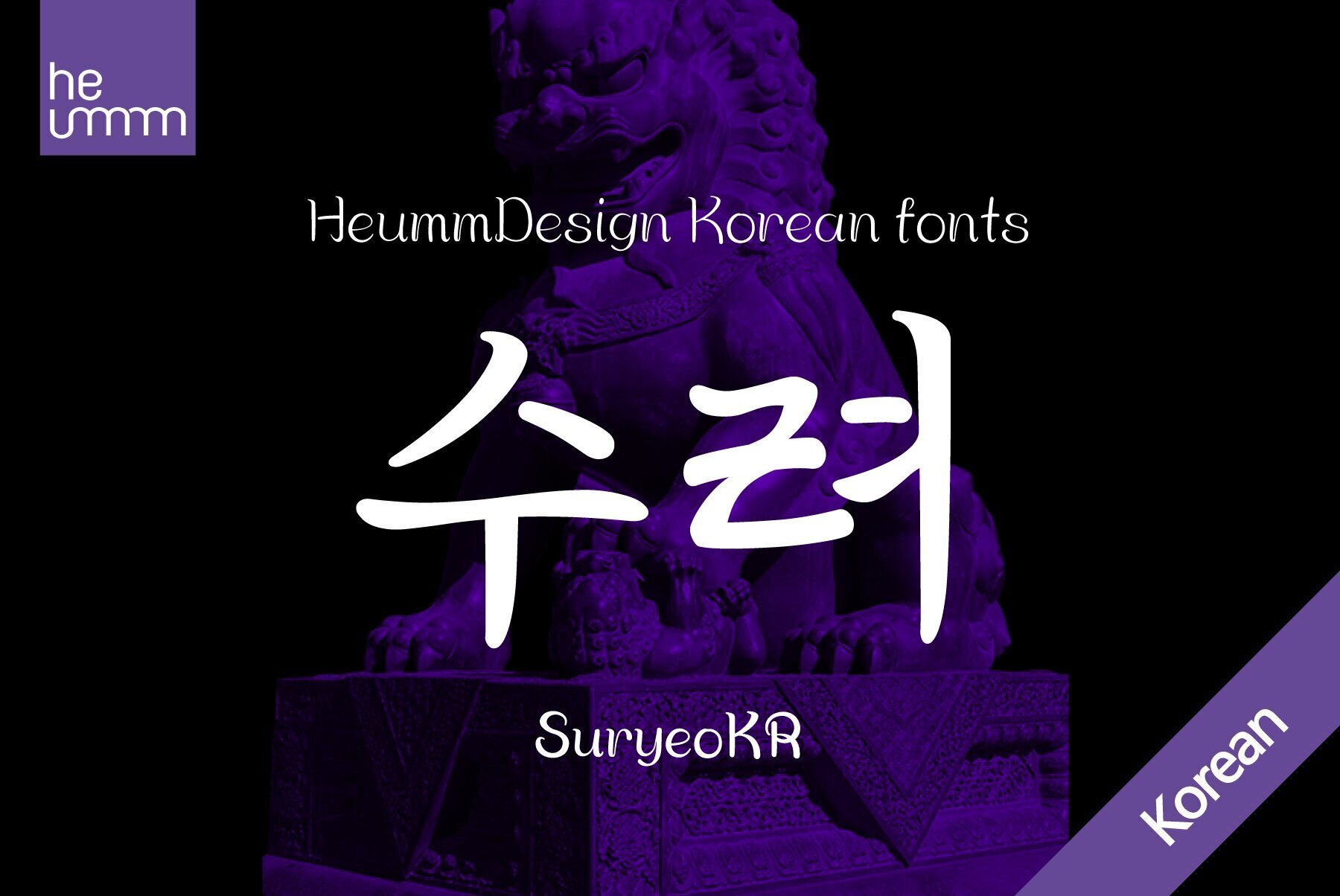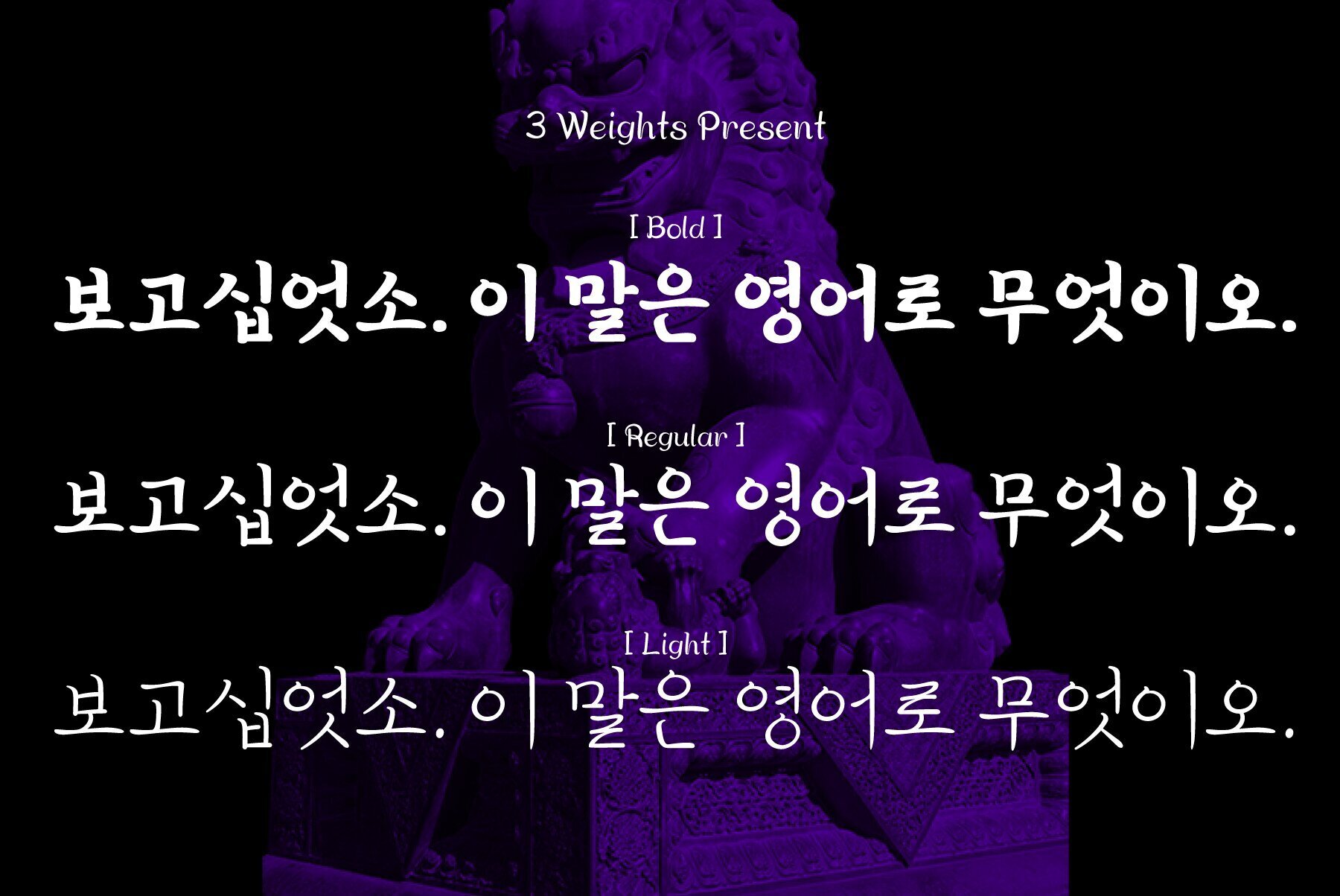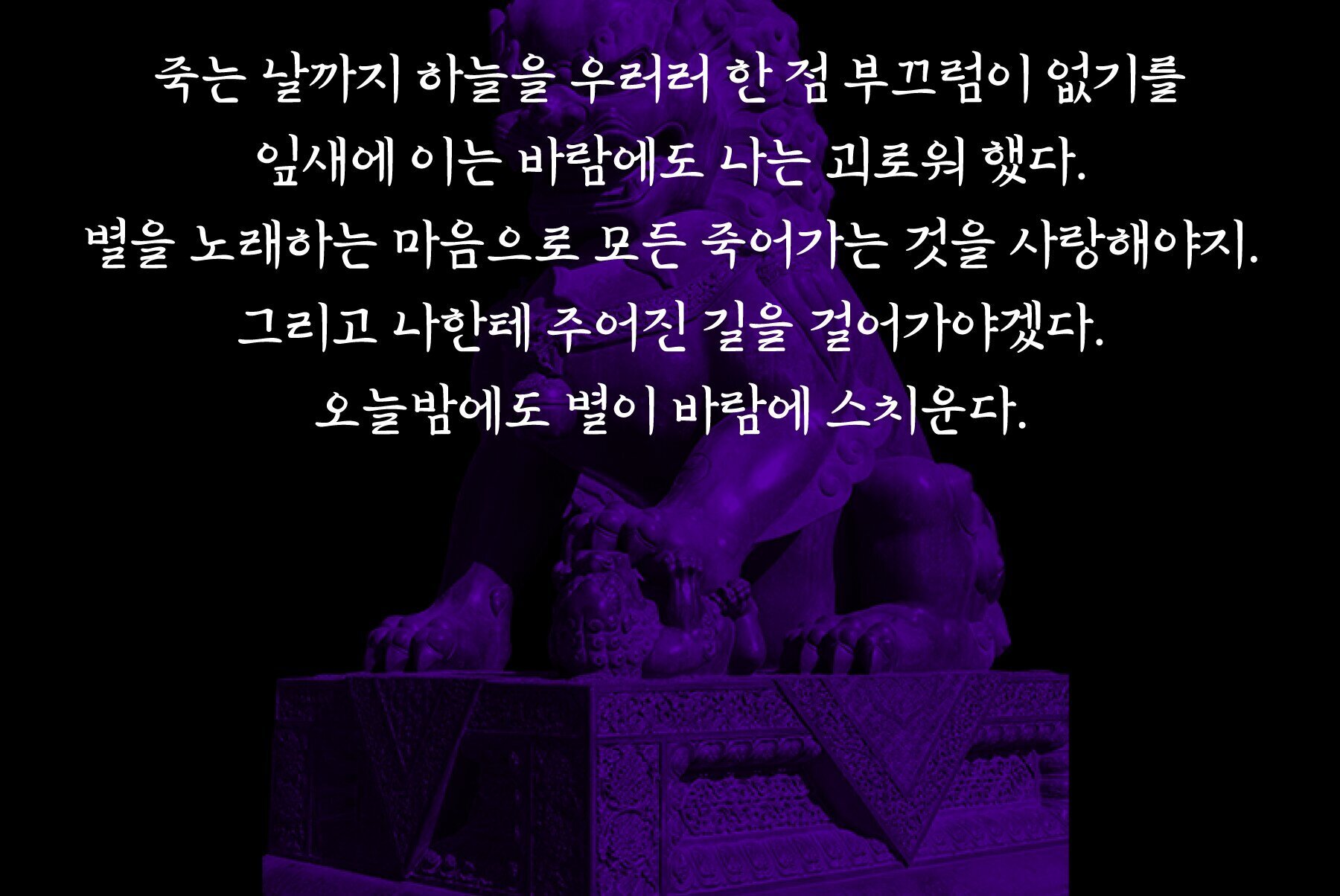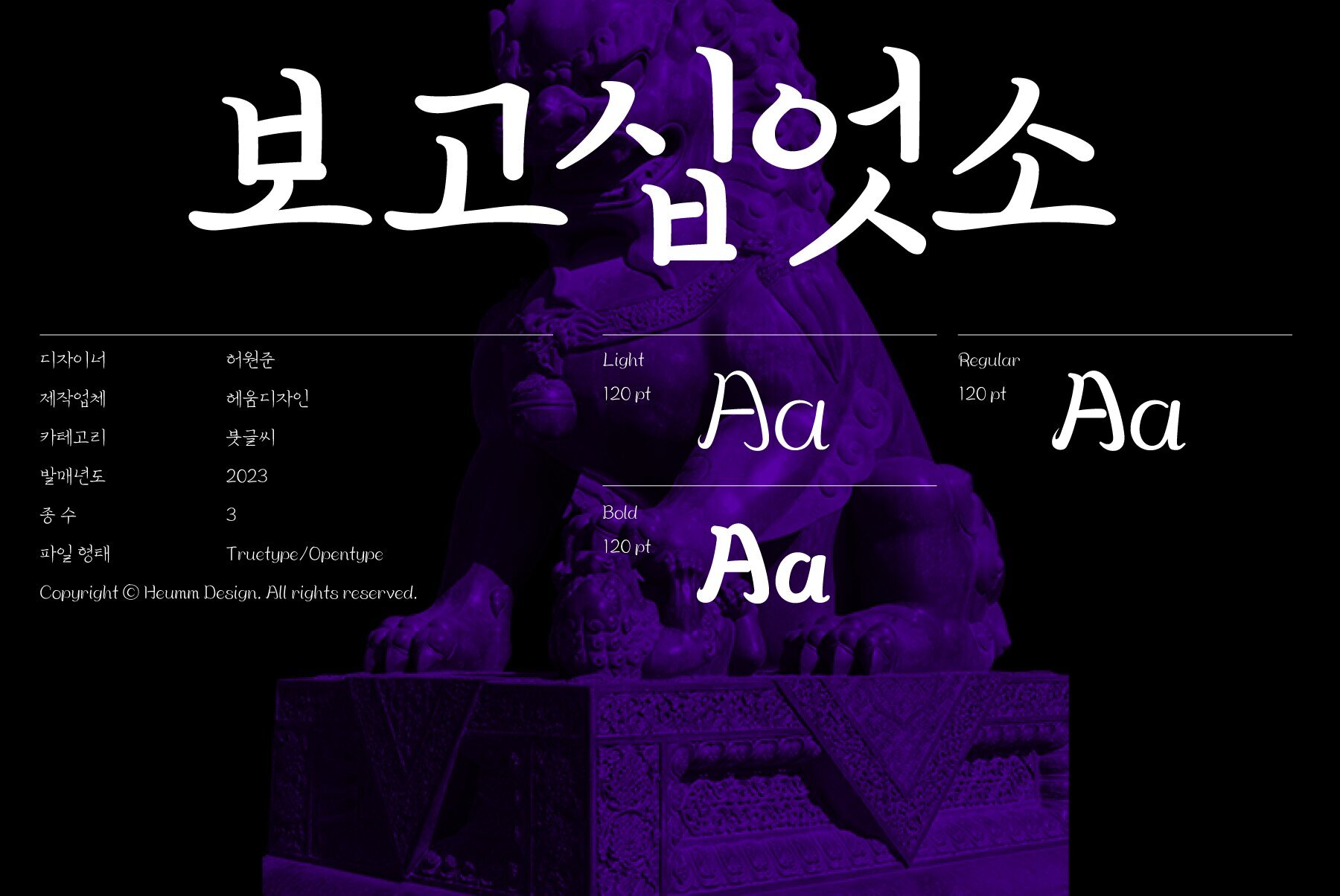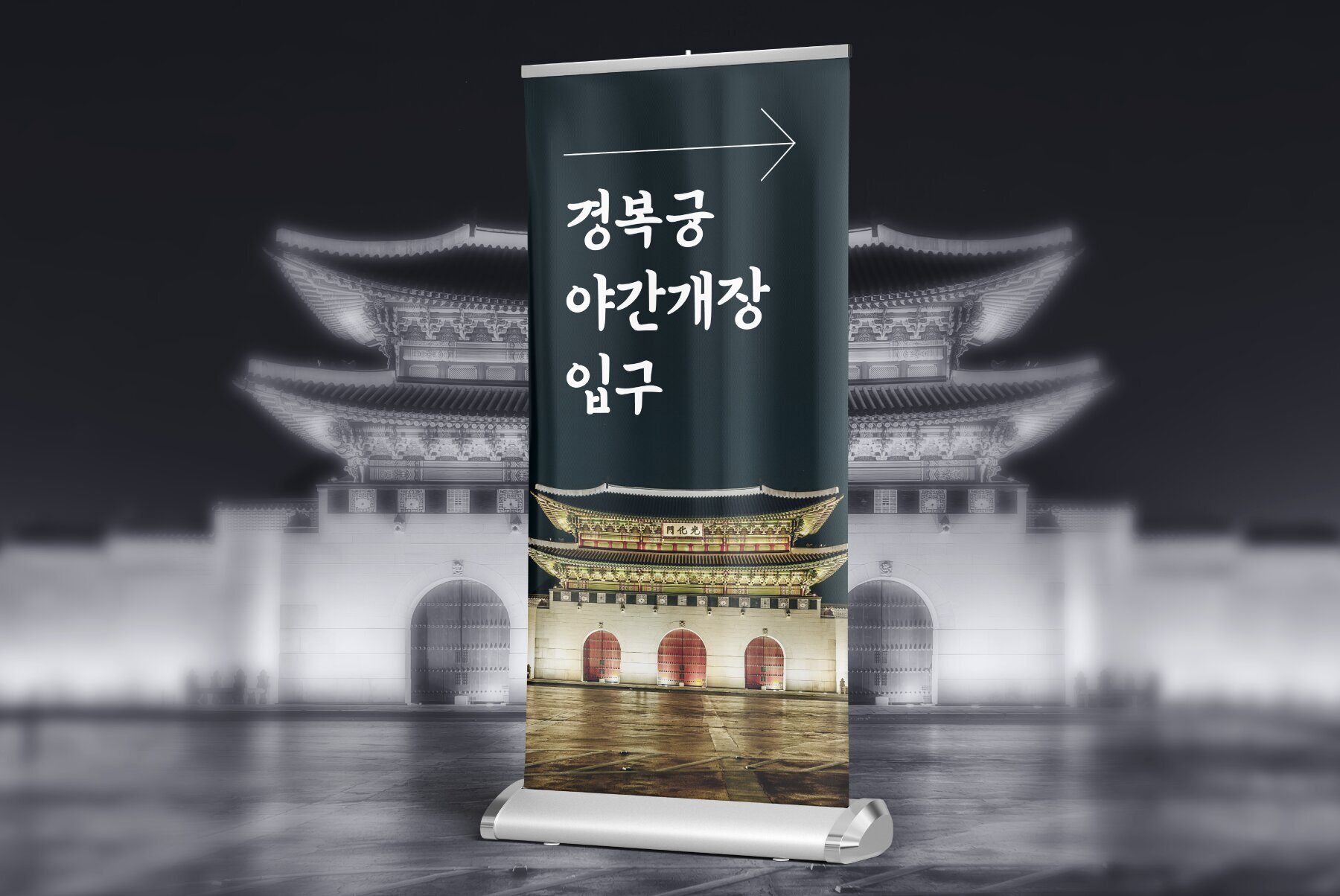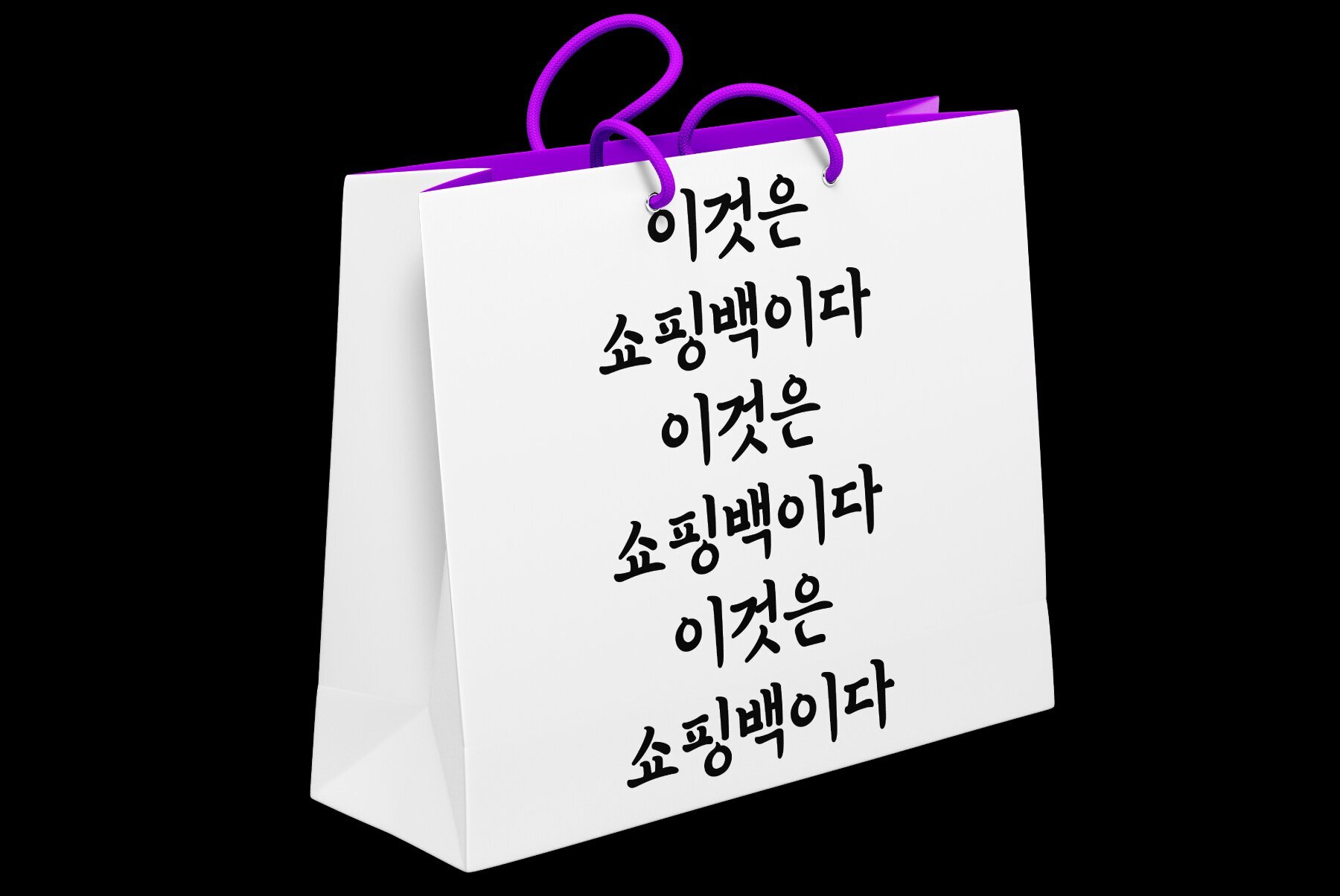
HU SuryeoKR is a new typeface of Heumm's calligraphy that takes the motif from carefully written calligraphy. It follows the calligraphic shape of Korean classics and can be used for titles and body text without distinction. The stroke thickness, strength, and degree of bending were set differently for each style. The thinner it is, the sharper it is, and the thicker it is, the blunt and round it is. HU SuryeoKR includes Korean.